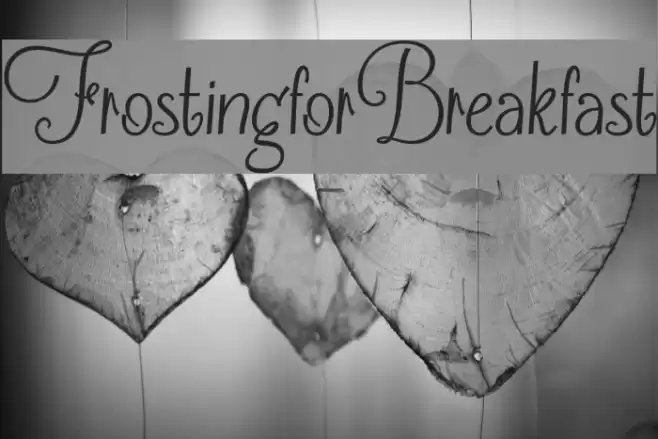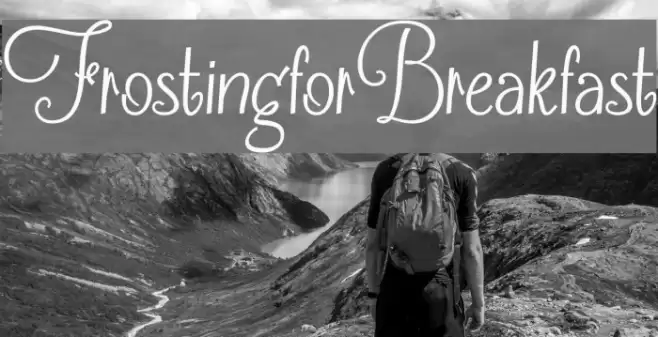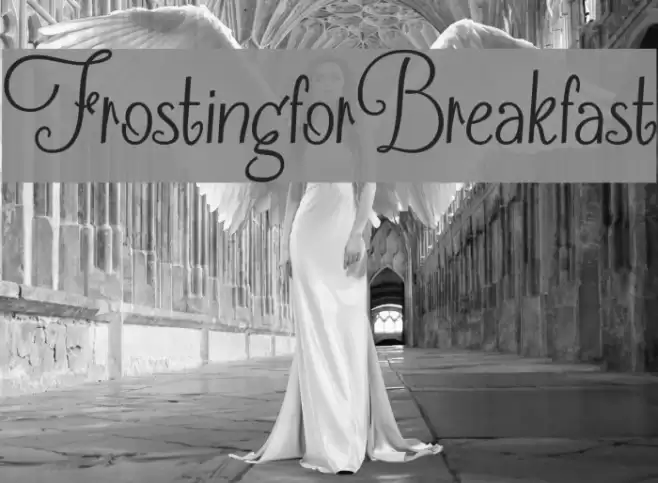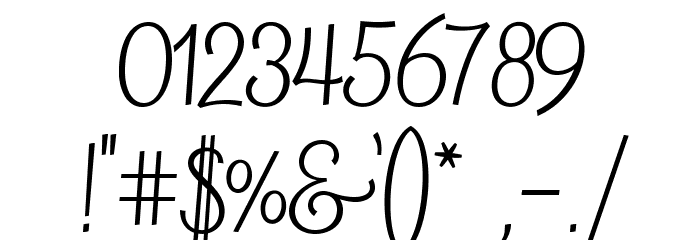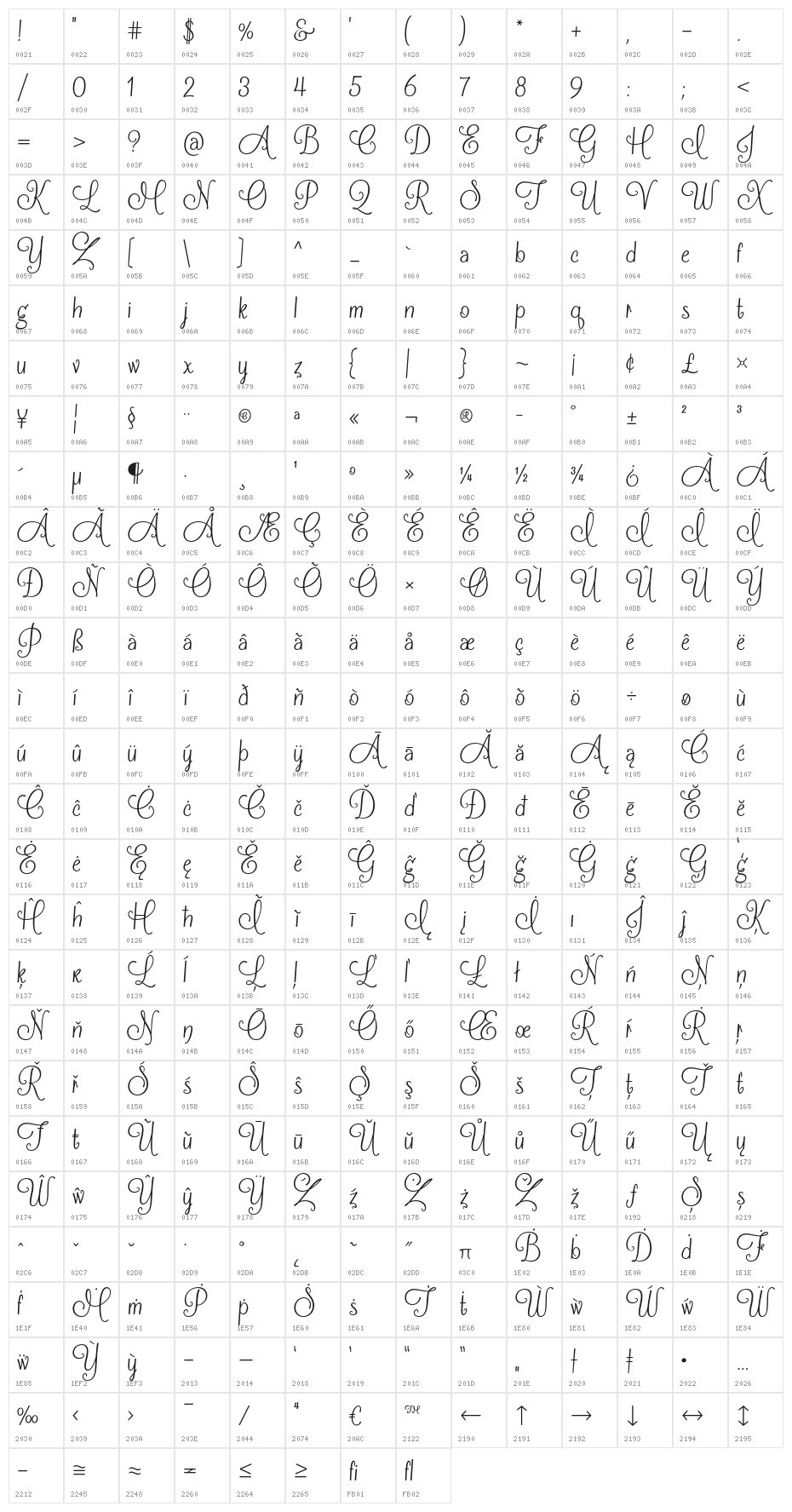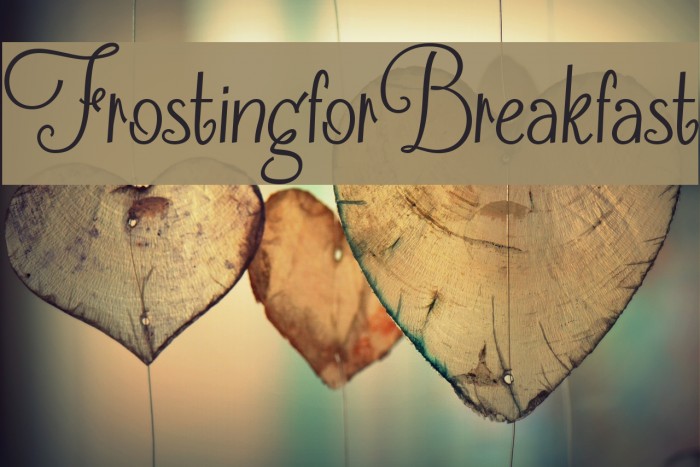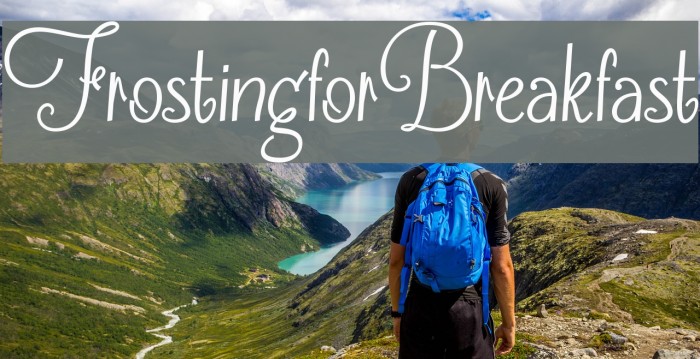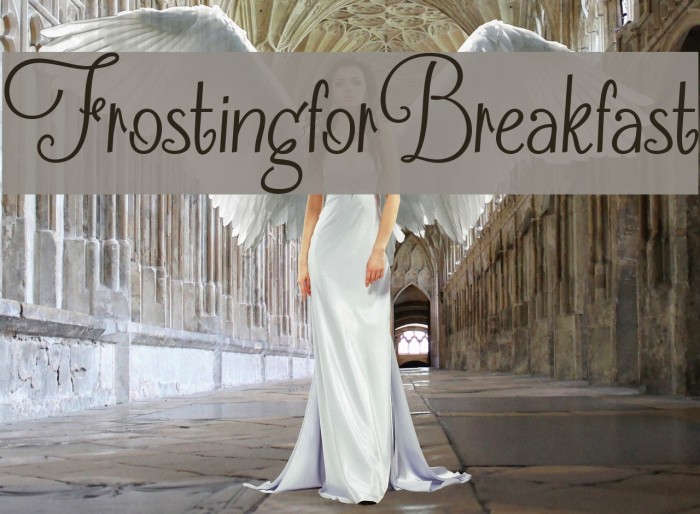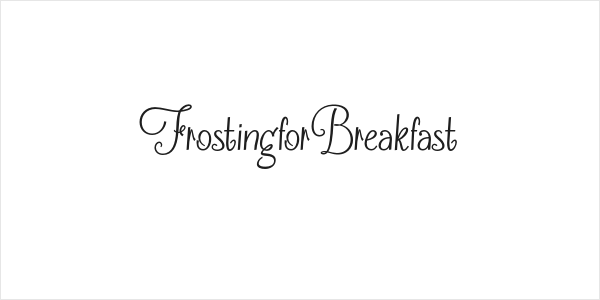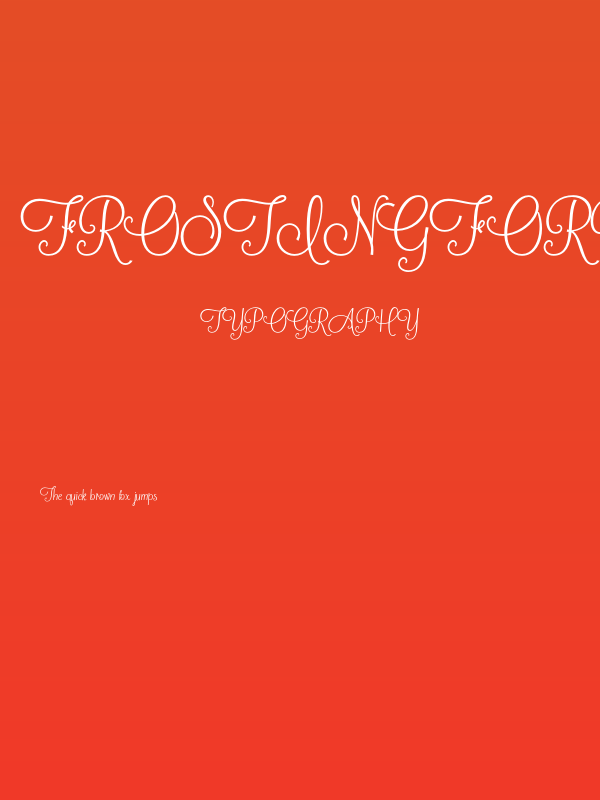
FrostingforBreakfast Font
FrostingforBreakfast Description
This font features an elegant and playful script style with a whimsical flair. The uppercase letters are characterized by their flowing, looping strokes, creating a sense of movement and grace. The lowercase letters maintain a more straightforward, yet still playful appearance, with a slight slant that adds to the overall dynamic feel. The numerals are consistent with the lowercase style, offering a clean and legible look. Special characters are integrated seamlessly, maintaining the font's cohesive aesthetic. The font's unique style makes it ideal for creative and decorative uses, where a touch of elegance and fun is desired.
A whimsical and elegant script font with flowing, looping strokes from Uncategorized fonts.
- Proposed Projects: Ideal for wedding invitations, greeting cards, branding, and decorative signage.
- Use Case: Headlines, Logos, Invitations